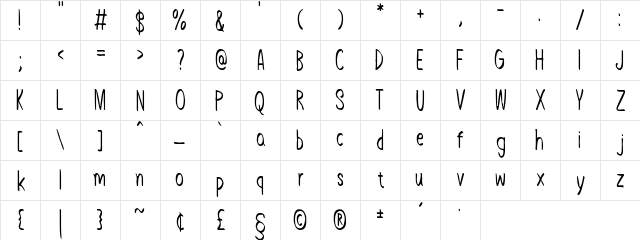
Keep Smiling Regular
Design Context for Keep Smiling Typeface
Keep Smiling takes a measured approach to typography — its balanced proportions and neutral character make it a reliable workhorse for both digital and print work.